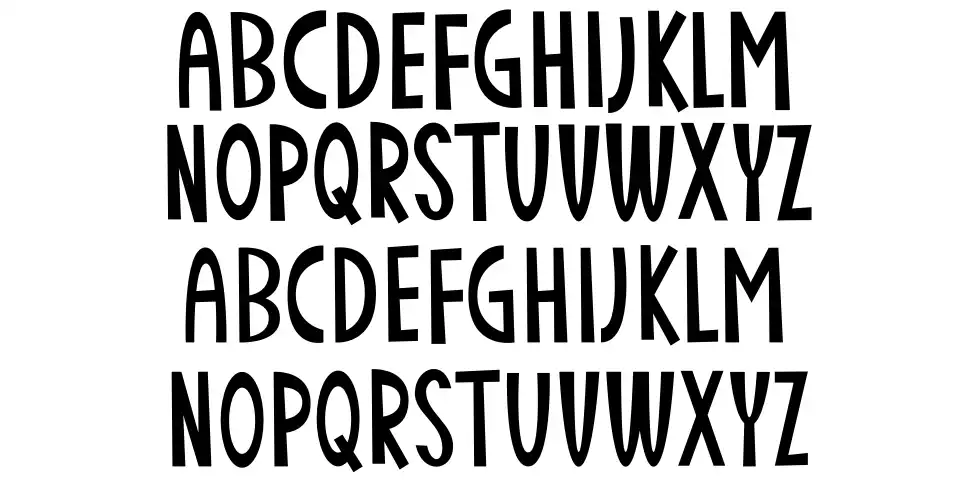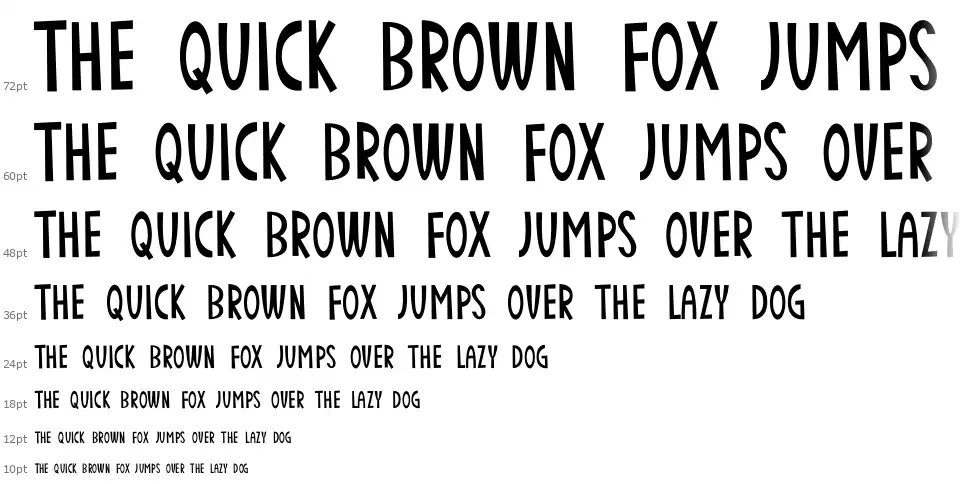
Chocolate Dipped Strawberry Font . Chocolate dipped strawberry is a simple and quirky display font. Trusted by millions + easy to use font files + full support. Looking for chocolate dipped strawberry font designed by kurnia setyadi? It fits a variety of design ideas, whether it’s product packaging, cartoons, comics and much more. Download chocolate dipped strawberry (911987) instantly now! Download font free at fontriver. Click here to create a custom image with your own text. ️ this font has been downloaded 200+ times. Chocolate dipped strawberry font is a cartoon typeface designed by deedeetype. Download and install the chocolate dipped strawberry font for free from ffonts.net.
Chocolate dipped strawberry is a simple and quirky display font. Chocolate dipped strawberry font is a cartoon typeface designed by deedeetype. Download font free at fontriver. Looking for chocolate dipped strawberry font designed by kurnia setyadi? It fits a variety of design ideas, whether it’s product packaging, cartoons, comics and much more. Trusted by millions + easy to use font files + full support. Click here to create a custom image with your own text. ️ this font has been downloaded 200+ times. Download and install the chocolate dipped strawberry font for free from ffonts.net. Download chocolate dipped strawberry (911987) instantly now!
Chocolate Dipped Strawberry Font Download chocolate dipped strawberry (911987) instantly now! Click here to create a custom image with your own text. Chocolate dipped strawberry is a simple and quirky display font. Download and install the chocolate dipped strawberry font for free from ffonts.net. Looking for chocolate dipped strawberry font designed by kurnia setyadi? ️ this font has been downloaded 200+ times. Trusted by millions + easy to use font files + full support. It fits a variety of design ideas, whether it’s product packaging, cartoons, comics and much more. Download chocolate dipped strawberry (911987) instantly now! Download font free at fontriver. Chocolate dipped strawberry font is a cartoon typeface designed by deedeetype.
Chocolate Dipped Strawberry Font FontPicks download free fonts Chocolate Dipped Strawberry Font Looking for chocolate dipped strawberry font designed by kurnia setyadi? Download and install the chocolate dipped strawberry font for free from ffonts.net. Trusted by millions + easy to use font files + full support. ️ this font has been downloaded 200+ times. Download font free at fontriver. Click here to create a custom image with your own text. Download chocolate. Chocolate Dipped Strawberry Font.
Strawberry Font by william jhordy · Creative Fabrica Chocolate Dipped Strawberry Font Looking for chocolate dipped strawberry font designed by kurnia setyadi? Download and install the chocolate dipped strawberry font for free from ffonts.net. Trusted by millions + easy to use font files + full support. It fits a variety of design ideas, whether it’s product packaging, cartoons, comics and much more. Chocolate dipped strawberry font is a cartoon typeface designed by. Chocolate Dipped Strawberry Font.
Strawberry and chocolate dipped realistic illustration Stock Vector Chocolate Dipped Strawberry Font Click here to create a custom image with your own text. Chocolate dipped strawberry is a simple and quirky display font. Trusted by millions + easy to use font files + full support. It fits a variety of design ideas, whether it’s product packaging, cartoons, comics and much more. Download font free at fontriver. Looking for chocolate dipped strawberry font. Chocolate Dipped Strawberry Font.
Premium Vector Chocolate dipped strawberry isolated on white Chocolate Dipped Strawberry Font ️ this font has been downloaded 200+ times. Download chocolate dipped strawberry (911987) instantly now! It fits a variety of design ideas, whether it’s product packaging, cartoons, comics and much more. Chocolate dipped strawberry is a simple and quirky display font. Click here to create a custom image with your own text. Download and install the chocolate dipped strawberry font. Chocolate Dipped Strawberry Font.
Chocolate Dipped Strawberry font by Kurnia Setyadi FontRiver Chocolate Dipped Strawberry Font Chocolate dipped strawberry font is a cartoon typeface designed by deedeetype. Download chocolate dipped strawberry (911987) instantly now! Looking for chocolate dipped strawberry font designed by kurnia setyadi? Download font free at fontriver. It fits a variety of design ideas, whether it’s product packaging, cartoons, comics and much more. Trusted by millions + easy to use font files + full. Chocolate Dipped Strawberry Font.
Strawberry and Chocolate Text in Chocolate Dipped Strawberry Font Looking for chocolate dipped strawberry font designed by kurnia setyadi? Click here to create a custom image with your own text. Download chocolate dipped strawberry (911987) instantly now! It fits a variety of design ideas, whether it’s product packaging, cartoons, comics and much more. Chocolate dipped strawberry is a simple and quirky display font. Chocolate dipped strawberry font is a. Chocolate Dipped Strawberry Font.
Chocolate Font by Imagination Switch · Creative Fabrica Chocolate Dipped Strawberry Font Looking for chocolate dipped strawberry font designed by kurnia setyadi? Download and install the chocolate dipped strawberry font for free from ffonts.net. Click here to create a custom image with your own text. Chocolate dipped strawberry is a simple and quirky display font. ️ this font has been downloaded 200+ times. It fits a variety of design ideas, whether it’s. Chocolate Dipped Strawberry Font.
Premium Vector Chocolate dipped strawberry vector illustration Chocolate Dipped Strawberry Font Chocolate dipped strawberry font is a cartoon typeface designed by deedeetype. Looking for chocolate dipped strawberry font designed by kurnia setyadi? Trusted by millions + easy to use font files + full support. Download and install the chocolate dipped strawberry font for free from ffonts.net. It fits a variety of design ideas, whether it’s product packaging, cartoons, comics and much. Chocolate Dipped Strawberry Font.